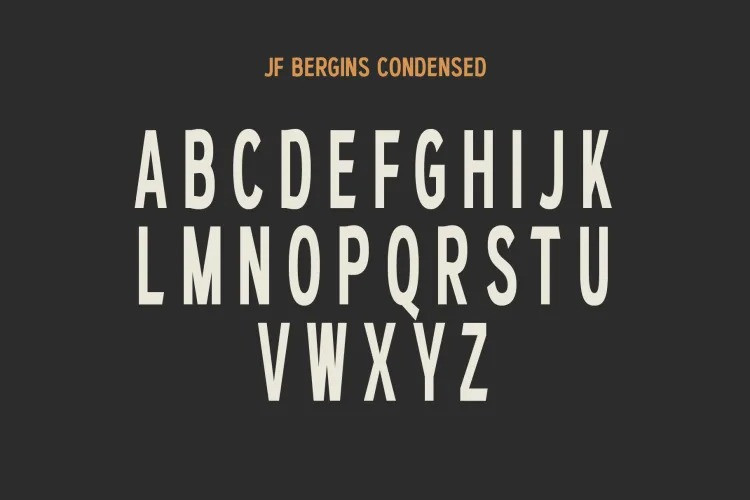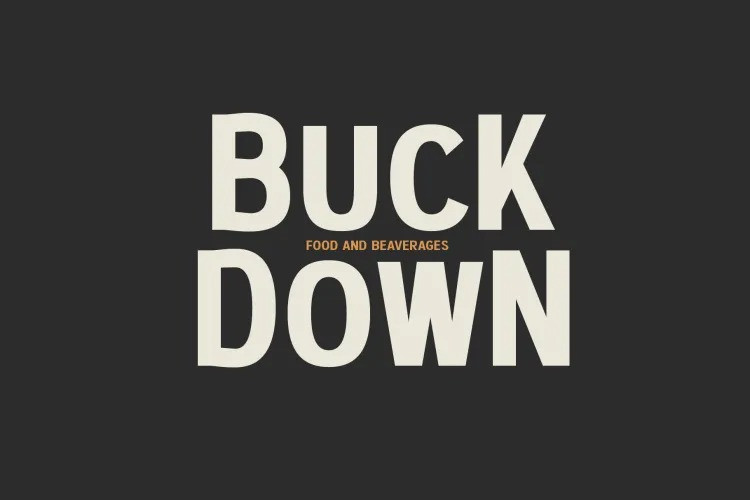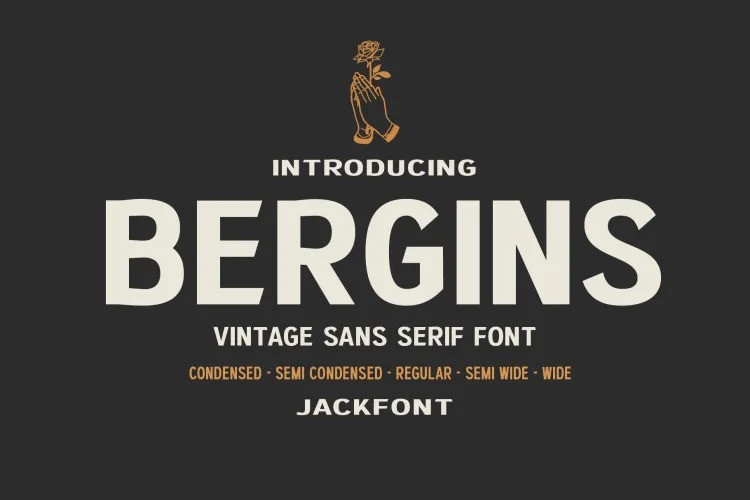
JF Bergins Font
JFBergins Sans Serif Font is a versatile vintage sans-serif font that comes in five distinct styles: condensed, semi-condensed, regular, semi-wide, and wide. Each style offers a unique look, allowing designers to choose the perfect fit for their project. With its bold lines and geometric shapes, JF Bergins commands attention and exudes a sense of strength and reliability. Its carefully crafted letterforms, harmonious spacing and kerning, and timeless style make it an ideal font for a variety of design projects, from retro and vintage-themed designs to modern and minimalist ones. JF Bergins is a valuable addition to any designer’s font library.